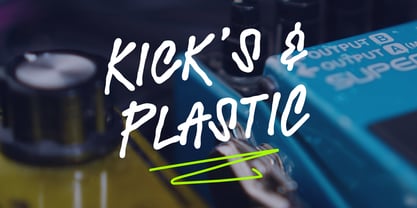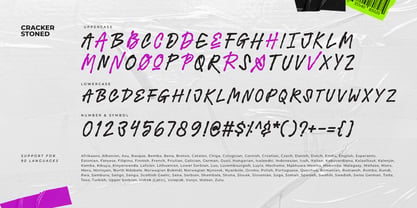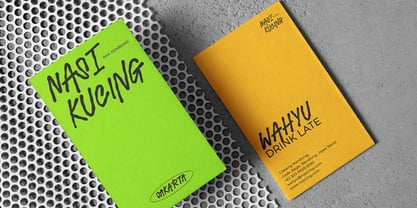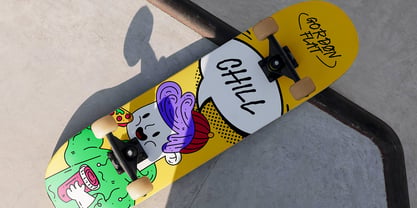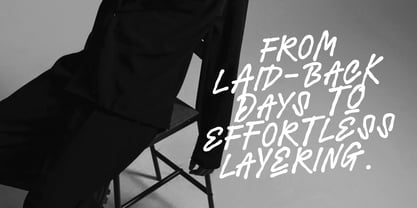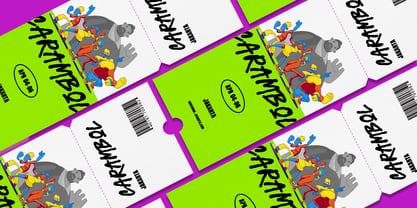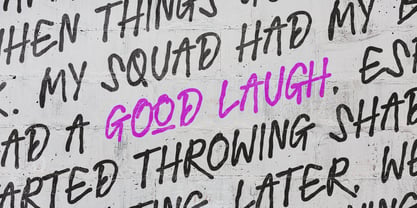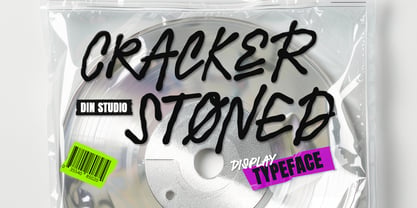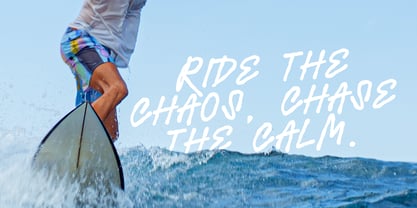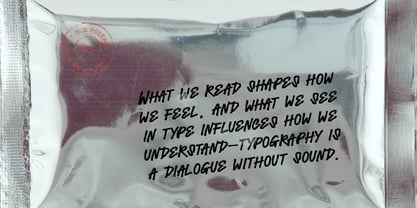
Cracker Stoned
by Din Studio
The Cracker Stoned Font Family was designed by Donis Miftahudin and published by Din Studio. Cracker Stoned contains 1 styles. More about this family
Cracker Stone is a uniquely designed display font that combines a delicate light weight with a playful touch of wavy line outlines. Each letter is meticulously crafted with consistent proportions, creating a harmonious and balanced appearance while maintaining a sense of creative spontaneity. This distinctive style makes Cracker Stone an excellent choice for projects seeking a blend of modern elegance and quirky charm. Add a fresh, artistic vibe to your designs with this one-of-a-kind typeface. In addition, enjoy the features here.
Cracker Stone fits in logos, posters, branding materials, print media, and many more designs. Find out more ways to use this font by taking a look at the font preview.
About Din Studio
Din Studio is a type design studio founded by Donis Miftahudin in 2017. The studio focuses on creating unique and visually appealing script and display fonts that stand out in the industry. Donis Miftahudin is a well-known type designer in the industry and has created several popular fonts under the Din Studio brand.The fonts designed by Din Studio are characterized by their distinct style and aesthetic appeal. The studio's designs often incorporate unique elements, such as intricate ligatures and swashes, to create fonts that are not only visually stunning but also highly functional. The studio's fonts are often used in a variety of applications, including branding, advertising, and editorial design.Din Studio's fonts are highly regarded in the design community and have received recognition from industry publications and organizations. The studio has been featured in several design blogs and magazines, and its fonts have won awards at prestigious design competitions.One of the hallmarks of Din Studio's work is its commitment to innovation and experimentation. The studio is constantly exploring new techniques and approaches to type design, pushing the boundaries of what is possible in the field. This dedication to innovation has helped Din Studio establish itself as one of the most exciting and influential type design studios in the industry.Overall, Din Studio is a dynamic and innovative type design studio that is pushing the boundaries of what is possible in the field. With its focus on unique and visually appealing script and display fonts, the studio is poised to continue making a significant impact in the design community for years to come.